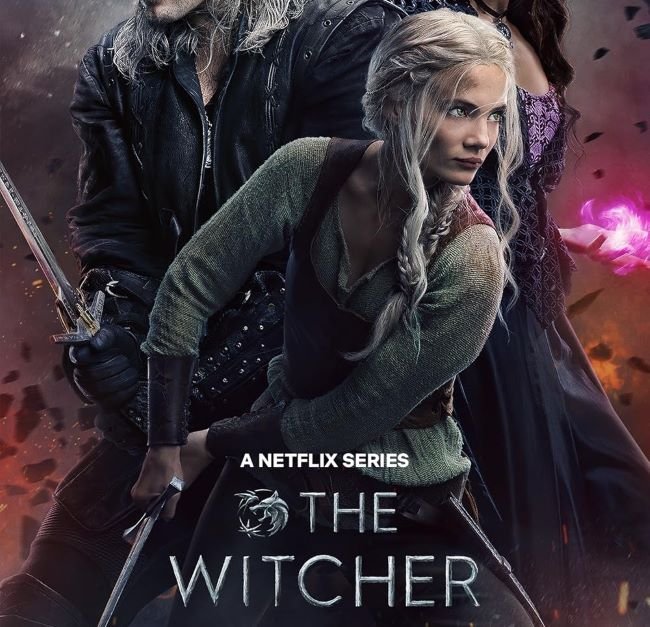
The Witcher Font
The Witcher font for Netflix’s 2019 adaptation of Andrzej Sapkowski’s beloved fantasy series inhabits the gothic-medieval tradition with the same ruthless pragmatism Geralt of Rivia brings to monster hunting — sharp, dark, and entirely functional within its own internal logic, its letterforms suggesting ancient manuscripts, silver sigils, and the kind of knowledge that costs more than it’s worth.